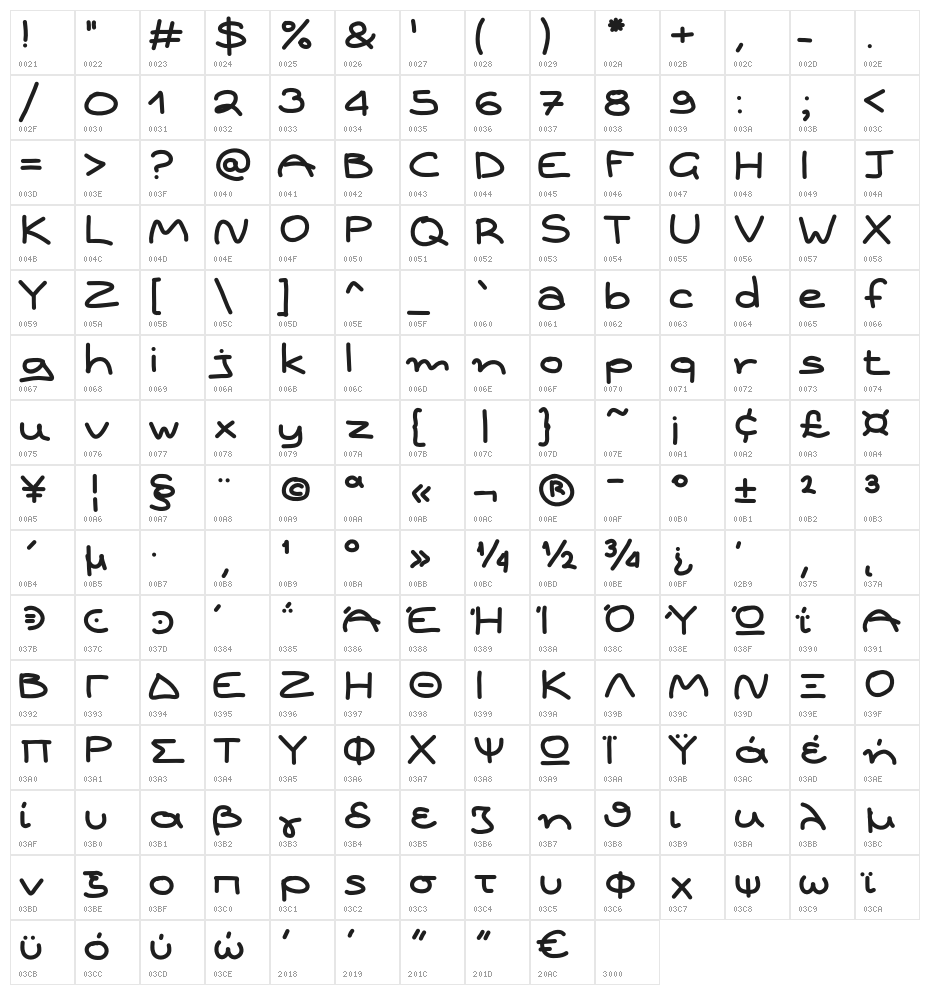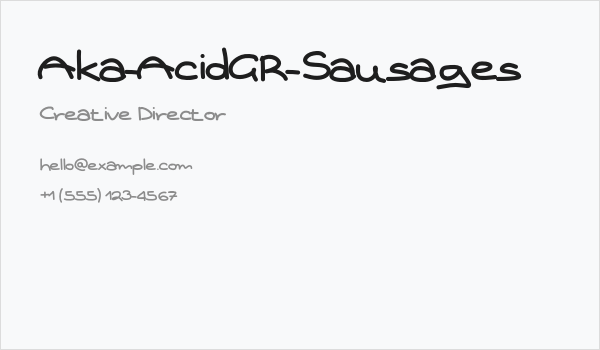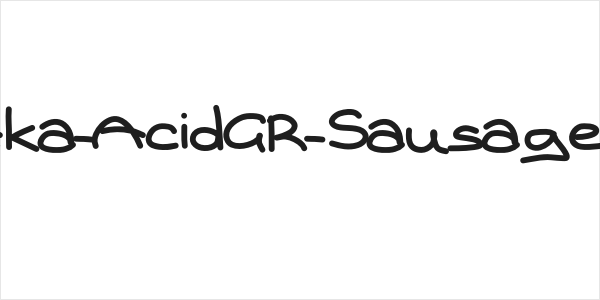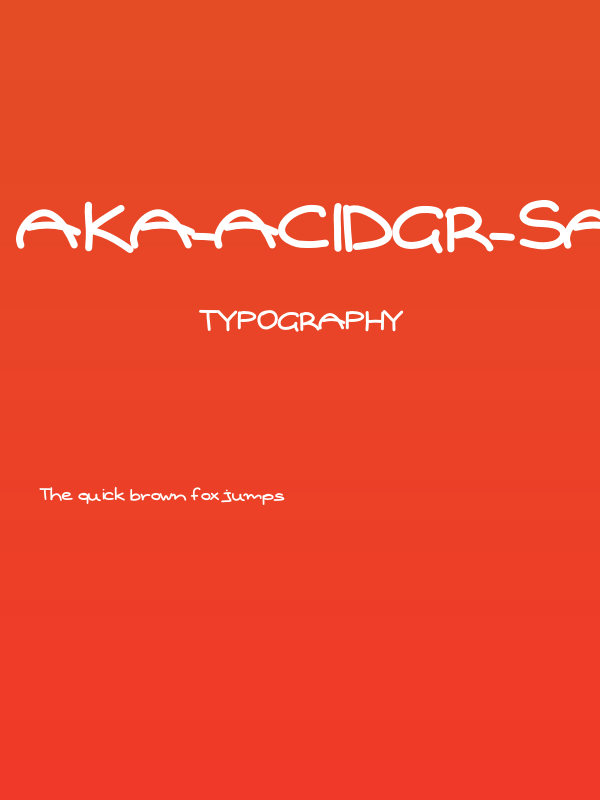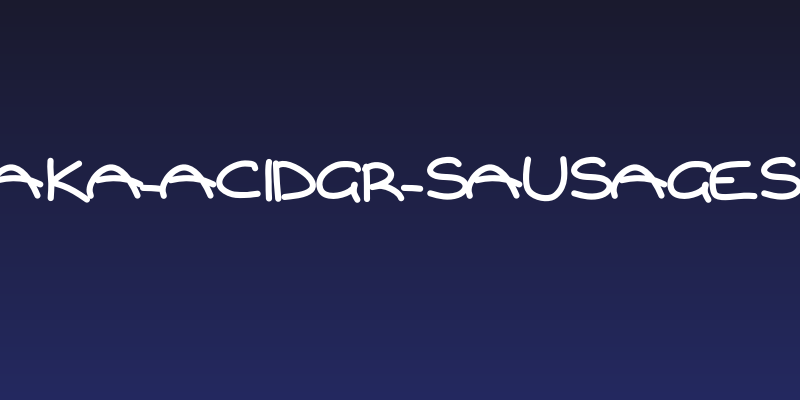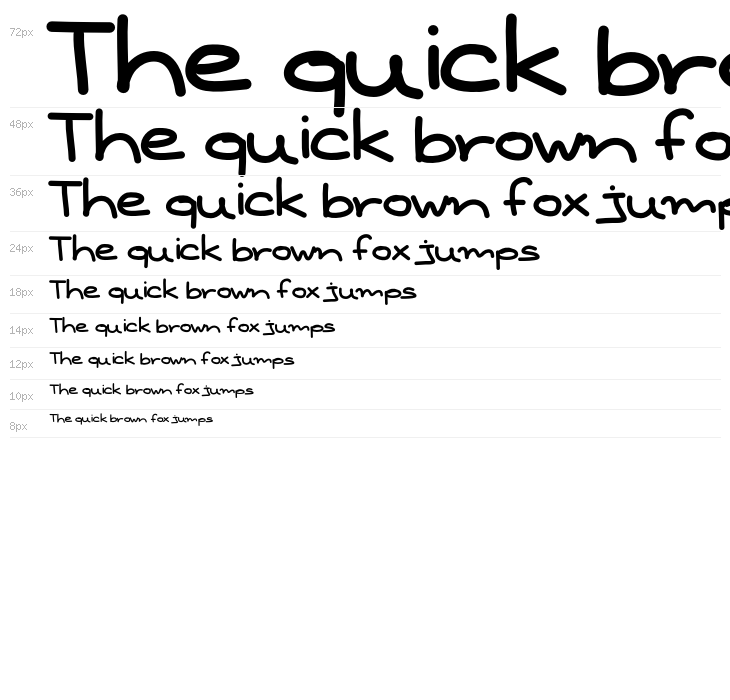
Aka-AcidGR-Sausages Font
Aka-AcidGR-Sausages Description
This playful and bold font features a handwritten style with a casual, friendly appearance. The characters are rounded and slightly irregular, giving it a whimsical and approachable feel. The uppercase and lowercase letters maintain a consistent style, with smooth curves and a slightly bouncy baseline. Numbers and special characters are designed to match the playful aesthetic, making the font suitable for creative and informal projects. Its unique style makes it stand out, while still being legible and versatile.
| Use Case | Logos, Headlines, Informal Text |
| Proposed Projects | Ideal for children's books, playful branding, greeting cards, and informal invitations. |